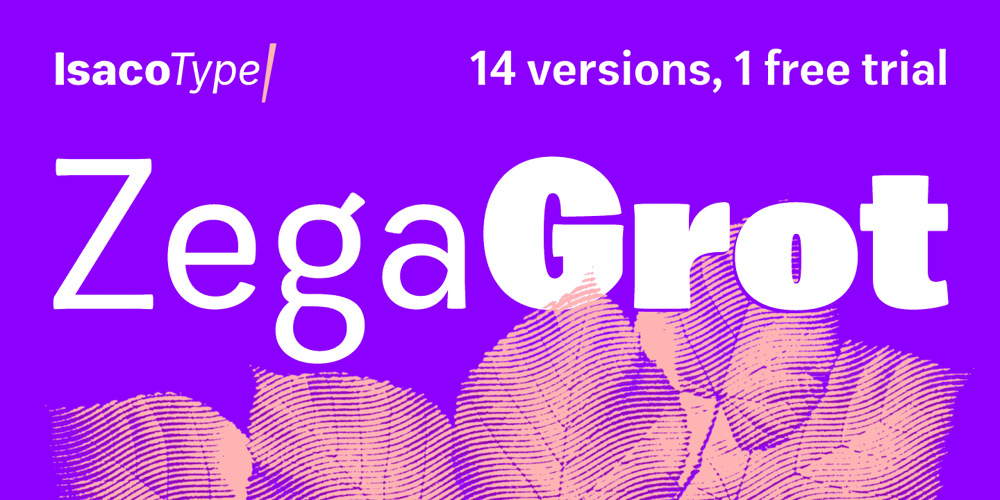
Zega Grot
Zega Grot font
Zega Grot Font Family was designed by Isac Rodrigues and published by Isaco Type. Zega Grot contains 15 styles and family package options. Celebrate good times with Zega Grot family! This font is the companion of Zega Text but less “serious” than its predecessor. The Grot version has old vertical proportions, with higher capitals and asc-descenders, height difference between capitals and ascenders, beyond the redesign of various glyphs, giving a less formal tone, more rounded and cheerful. The family consists of 14 styles, 7 weights plus their respective italic versions. The fonts are available in OpenType PS and have extended character set to support CE, Baltic, Turkish as well as Western European languages. You can test Zega downloading the free trial font in Extrabold version (TT only).